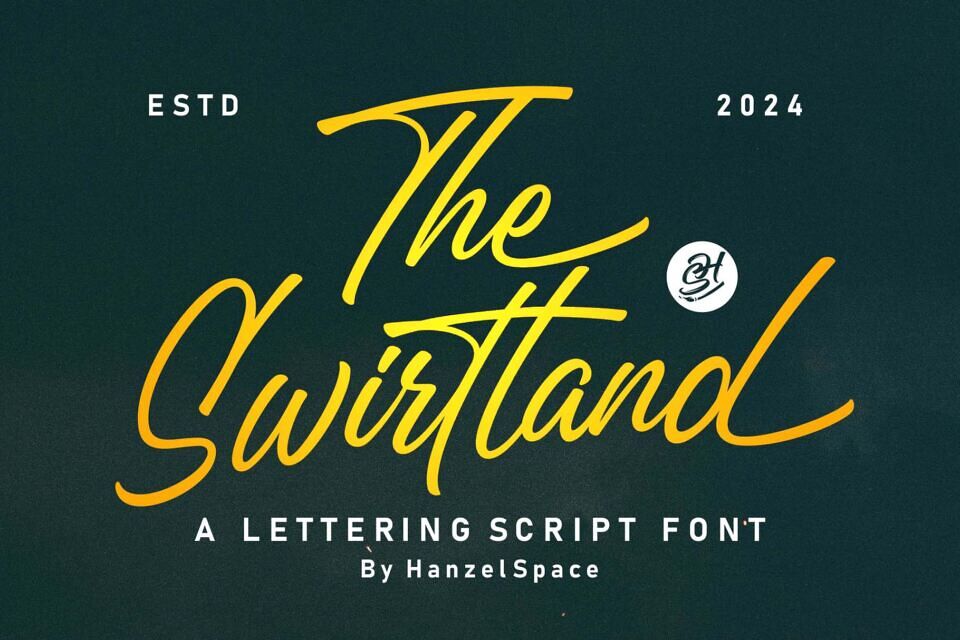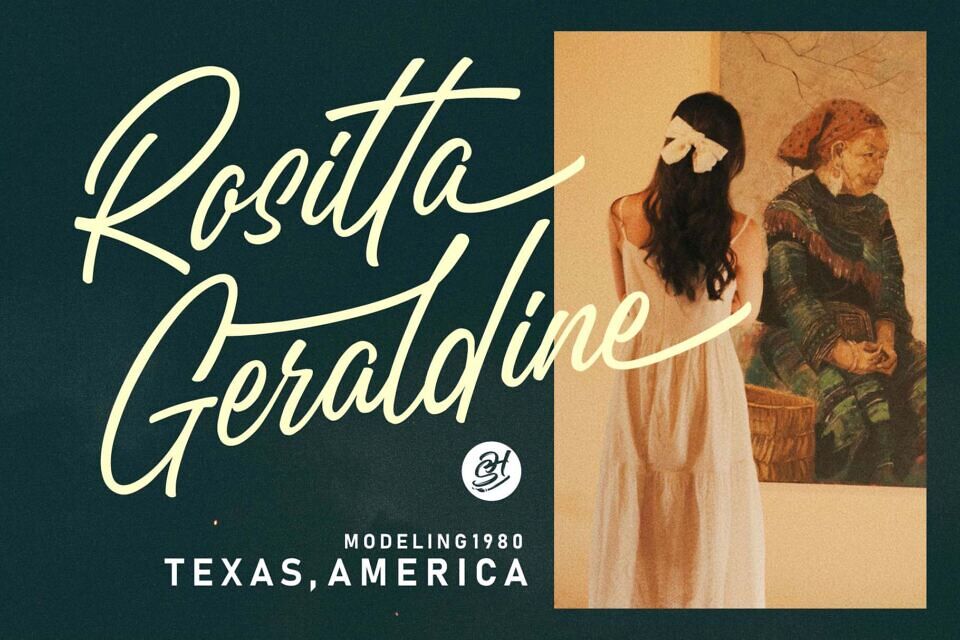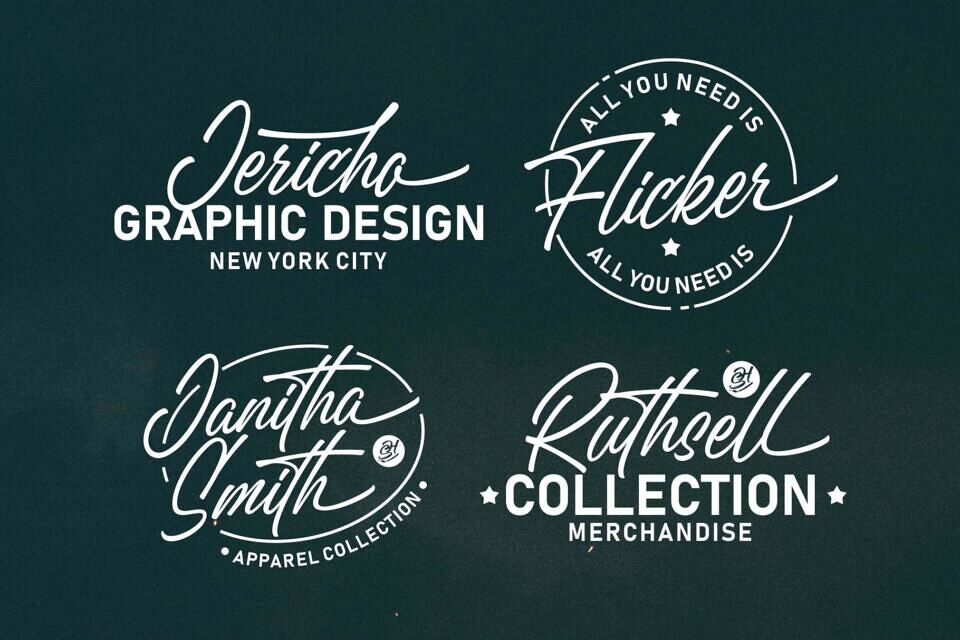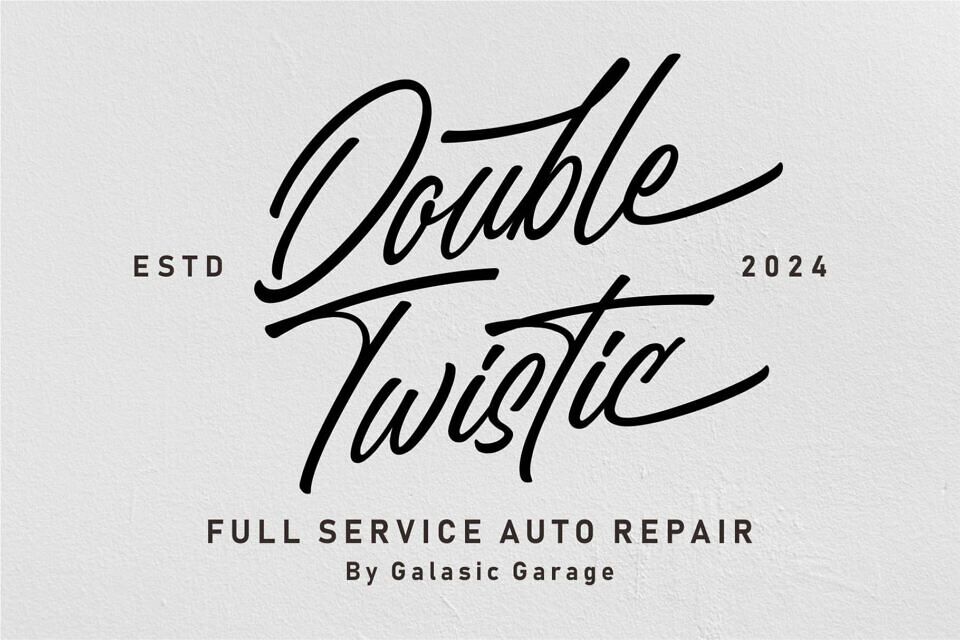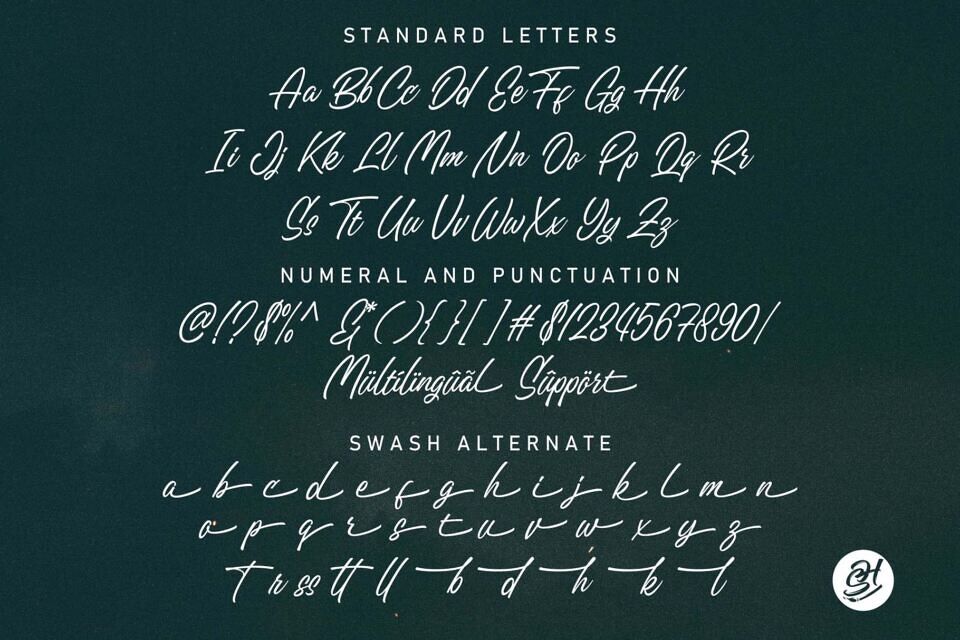
The Swirtland Font
Introducing Swirtland Script displays a fairly neat Hand Lettering style. Made with a touch of personality on every curve of the letter anatomy.
Equipped with a very practical bonus Swash set. Ideal for logos, handwritten quotes, product packaging, headers, posters, merchandise, social media & greeting cards.